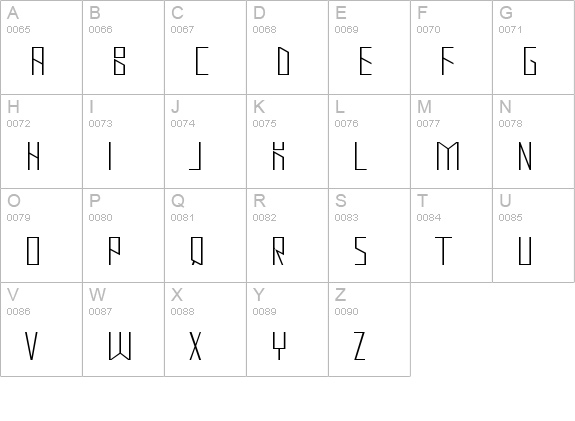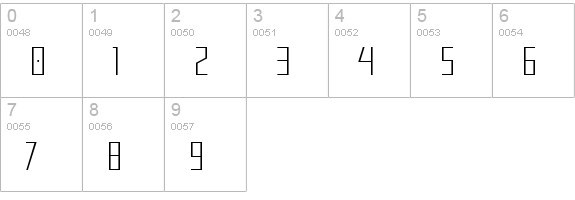
Mastodon Hairline Font Details
Mastodon Hairline is an exceptionally fine, almost invisible variant in the Mastodon typeface family \xE2\x80\x94 well suited to high-end editorial, fashion, and luxury display use.
Introducing Mastodon Hairline font, a sleek and modern typeface that exudes elegance and sophistication. With its delicate and precise lines, this font is perfect for creating designs that require a touch of refined beauty. The slim strokes and graceful curves of Mastodon Hairline make it ideal for projects that demand a sophisticated and stylish look. This font is not only visually appealing but also versatile, making it suitable for a wide range of design projects, from branding and packaging to invitations and social media graphics. Whether you're working on a high-end fashion campaign or a minimalist website design, Mastodon Hairline will add a touch of class to your work. Best of all, Mastodon Hairline is available for free download at FontsMarket.com. So, why wait? Give your projects a touch of elegance with Mastodon Hairline font today!